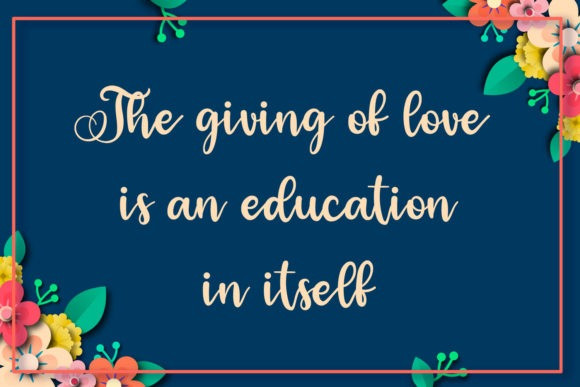
Vicky Cinthia Script Font
Vicky Cinthia This Font perfect for logos, name tag, advertising, product packaging, clothing, social media & greeting cards.